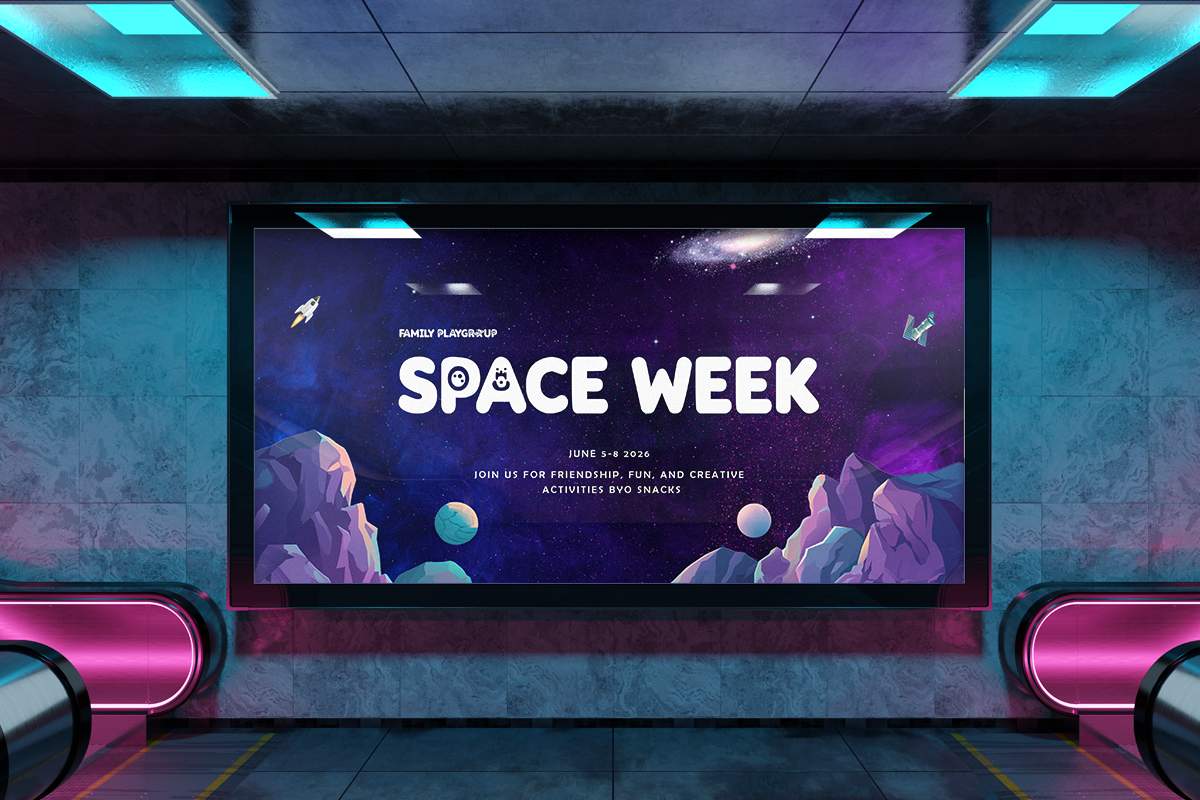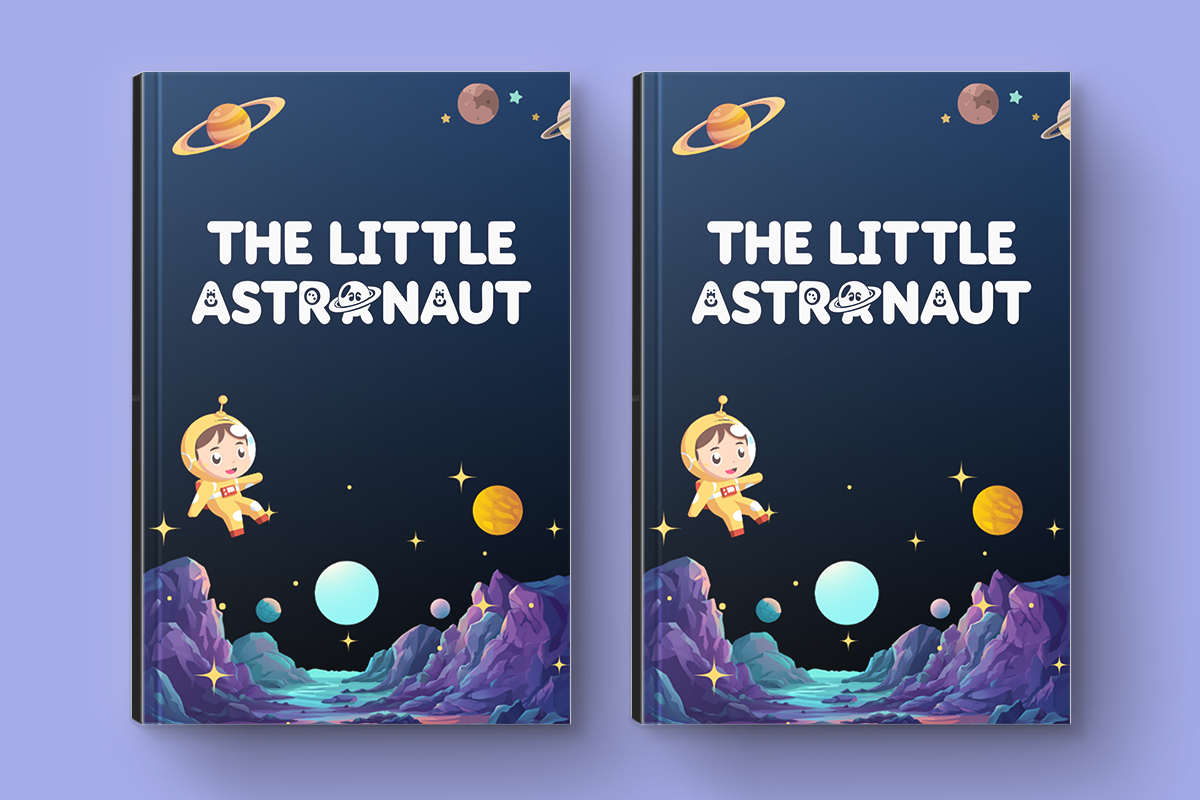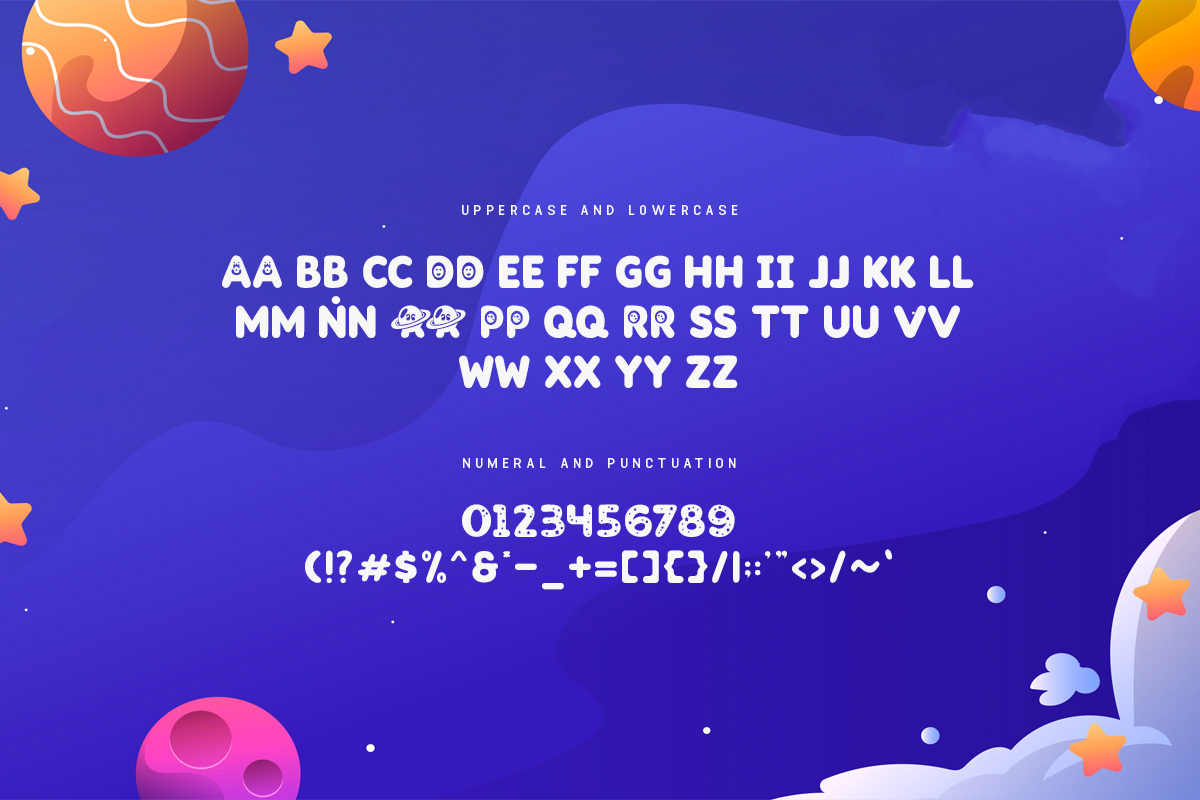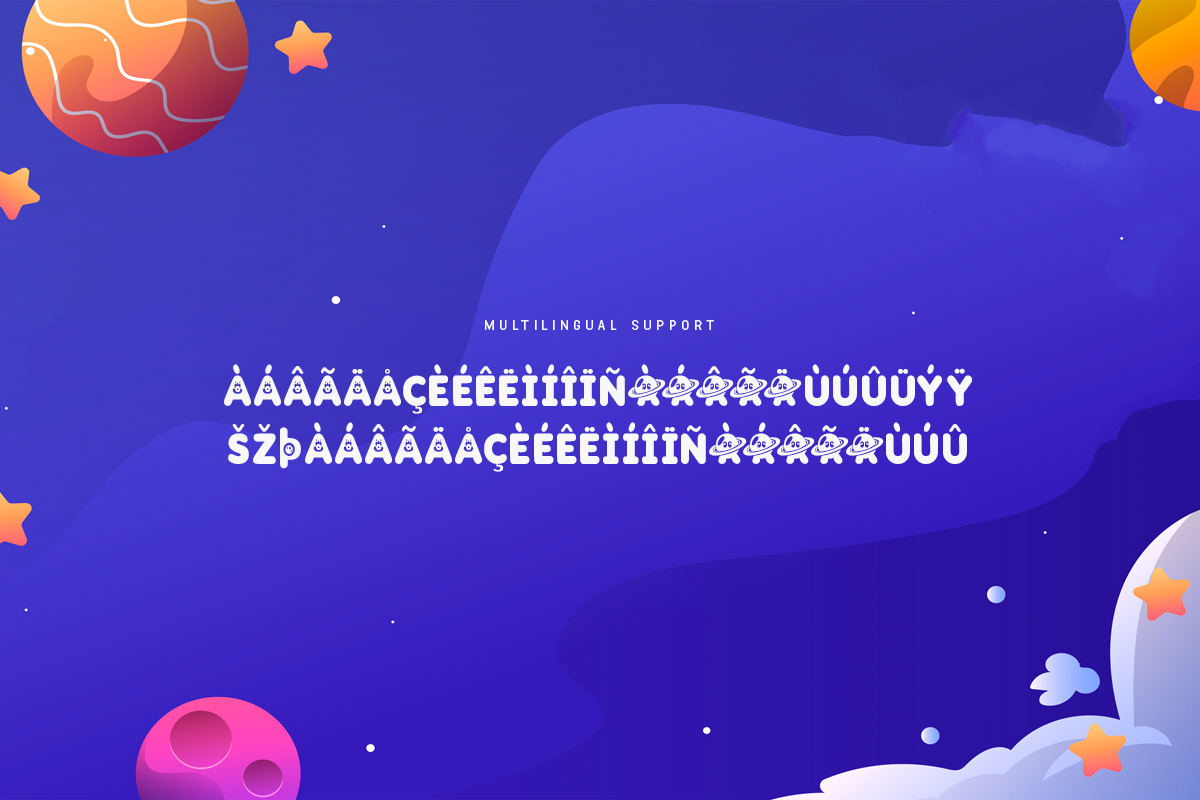
Skyforge A Modern Space Kids Font Decorative Font provides a variety of font types that have interesting characteristics. This time, Skyforge A Modern Space Kids Font is present as one of the best choices among other fonts. This font is a sans serif with ornaments. Some of the letters are written in series and look beautiful. Skyforge A Modern Space Kids Font is an illegible font. This type of font does not apply to prints that are too large or too small because it will reduce readability. Must be used with the appropriate font size so that it can provide a maximum attractive impression. Skyforge A Modern Space Kids Font can be applied to several things, such as product branding. Can be used as a brand label, promotional poster, and shop sign. This font can be used digitally when you want to promote products on social media. In addition to products, this font can be used to promote a service, such as photography. Skyforge A Modern Space Kids Font is one of the best fonts for quotes that contain motivation and encouragement. Beautiful letterforms will look great when combined with the right ornaments and colors. Our decorative font collection is compatible for use as Figma Fonts, Canva Fonts, Freepik Fonts, and Adobe Fonts. They also work as Windows and Apple Fonts. For your social media needs, you can use and install fonts in our Script & Signature font collection to use as Instagram Fonts, Facebook Fonts, and Twitter Fonts.